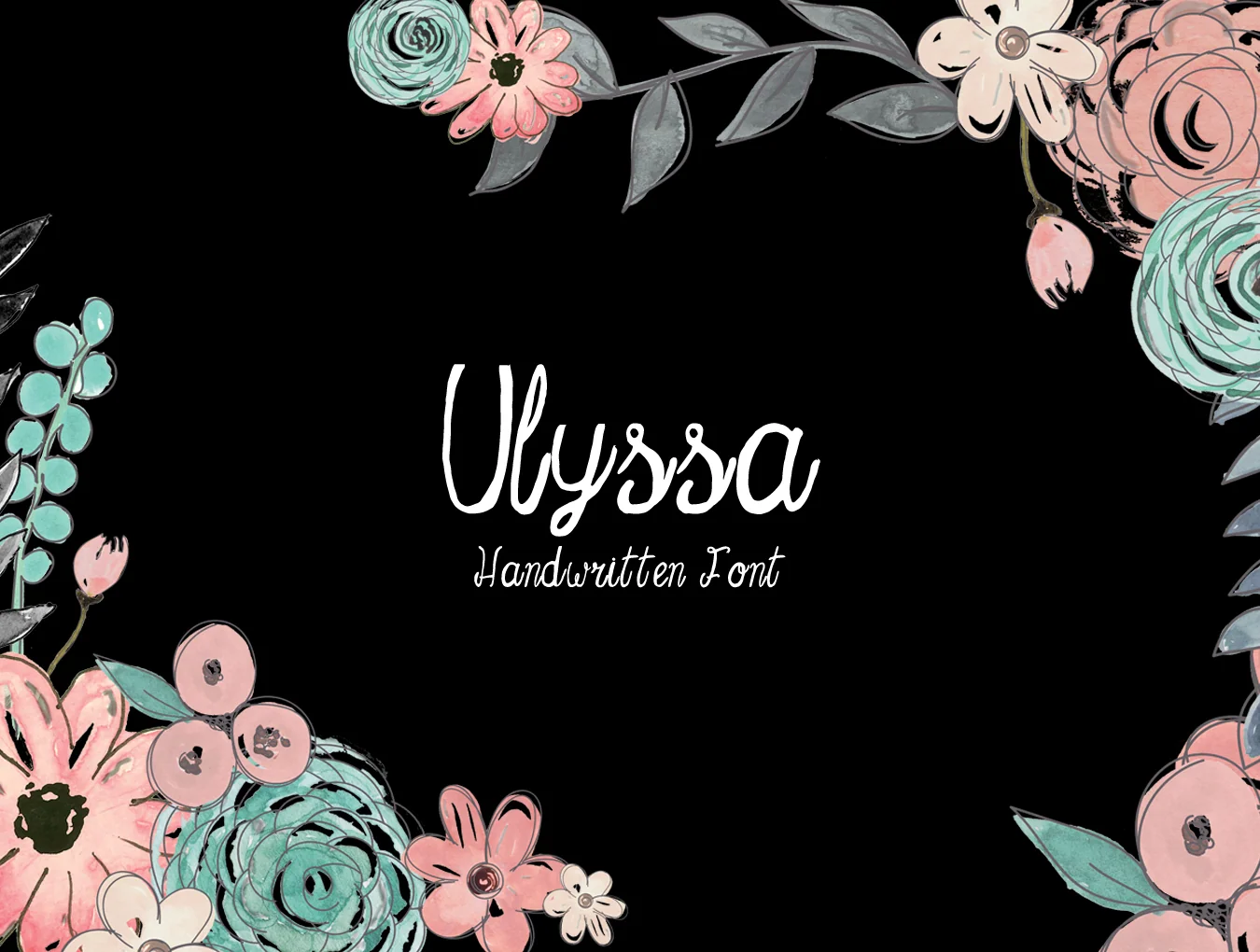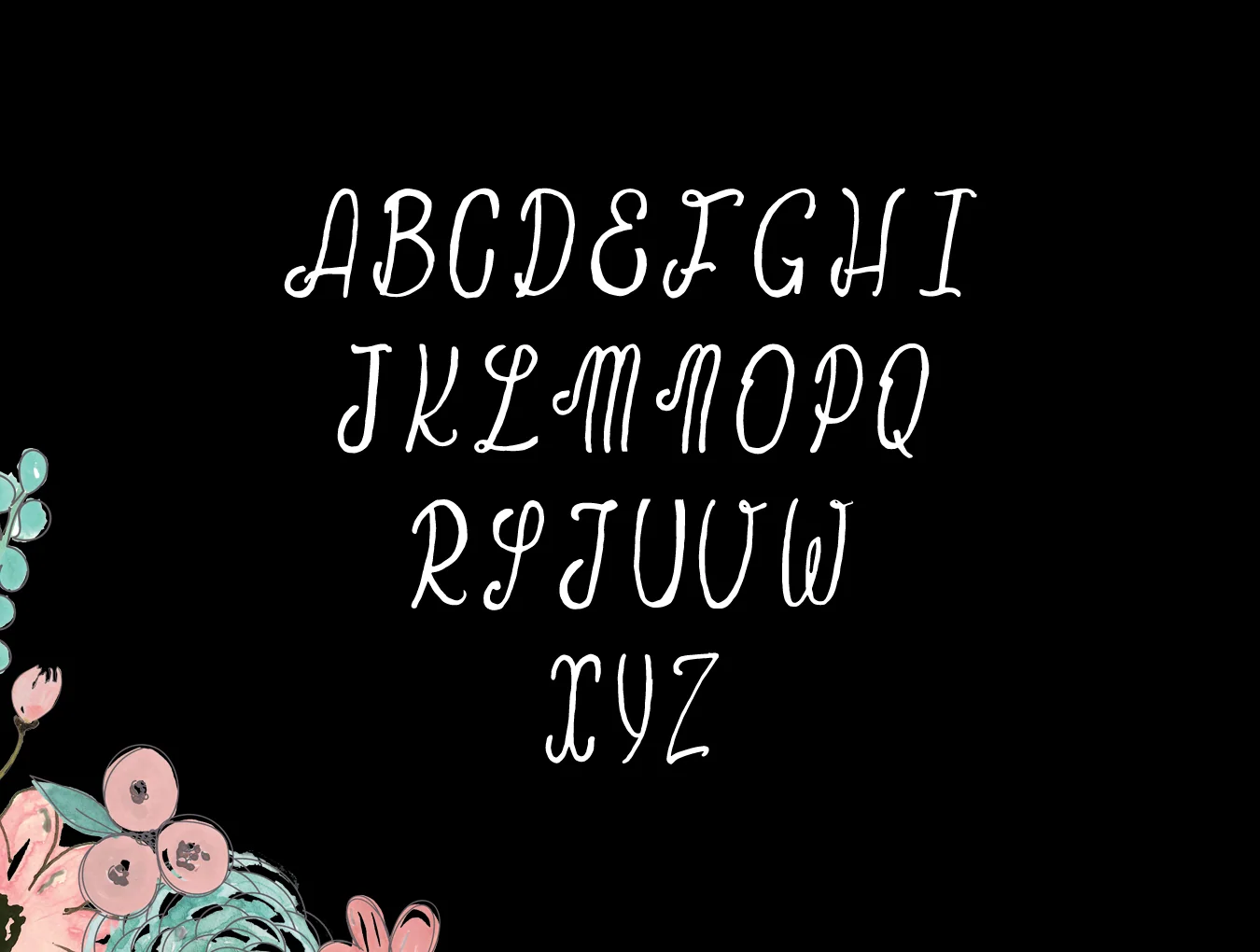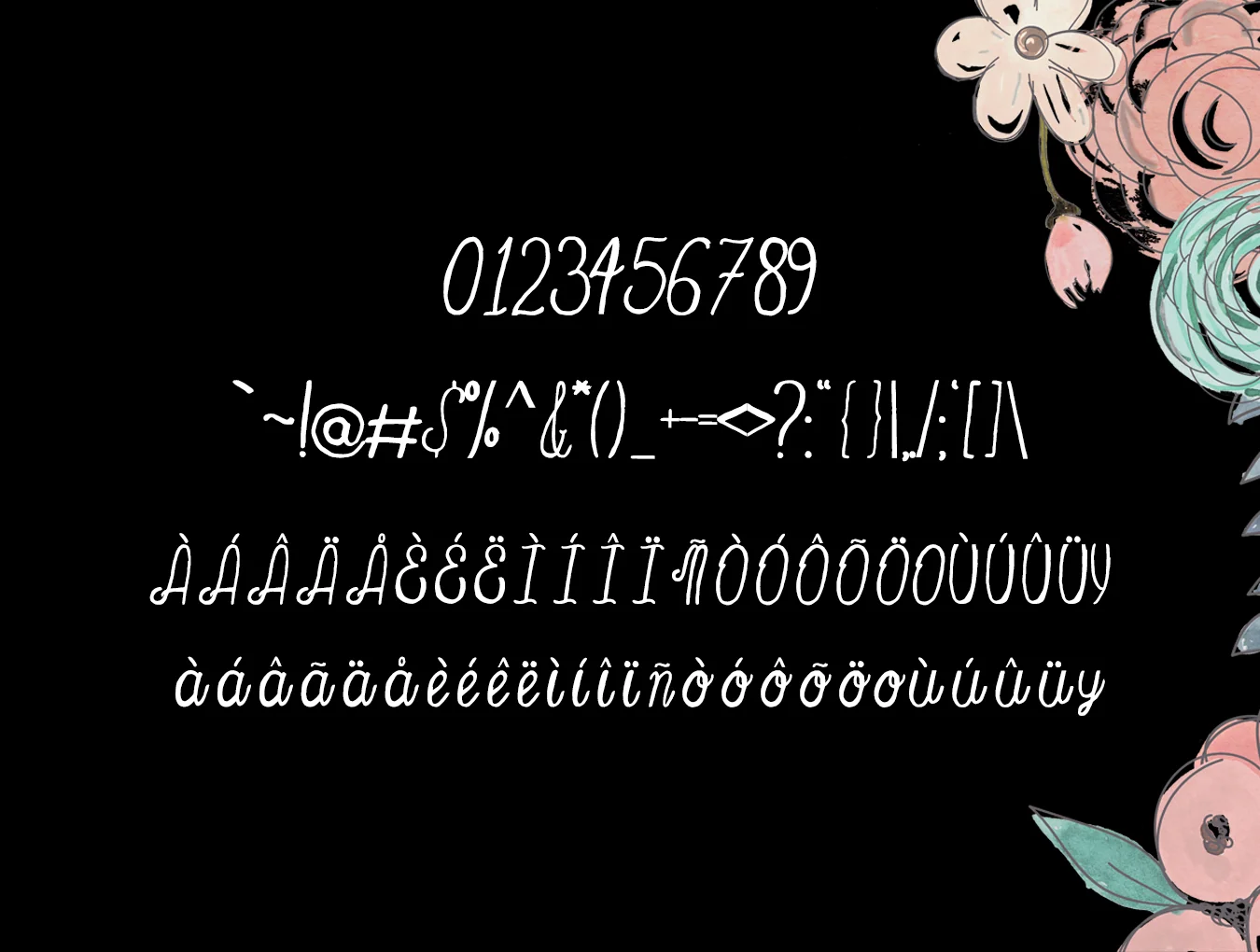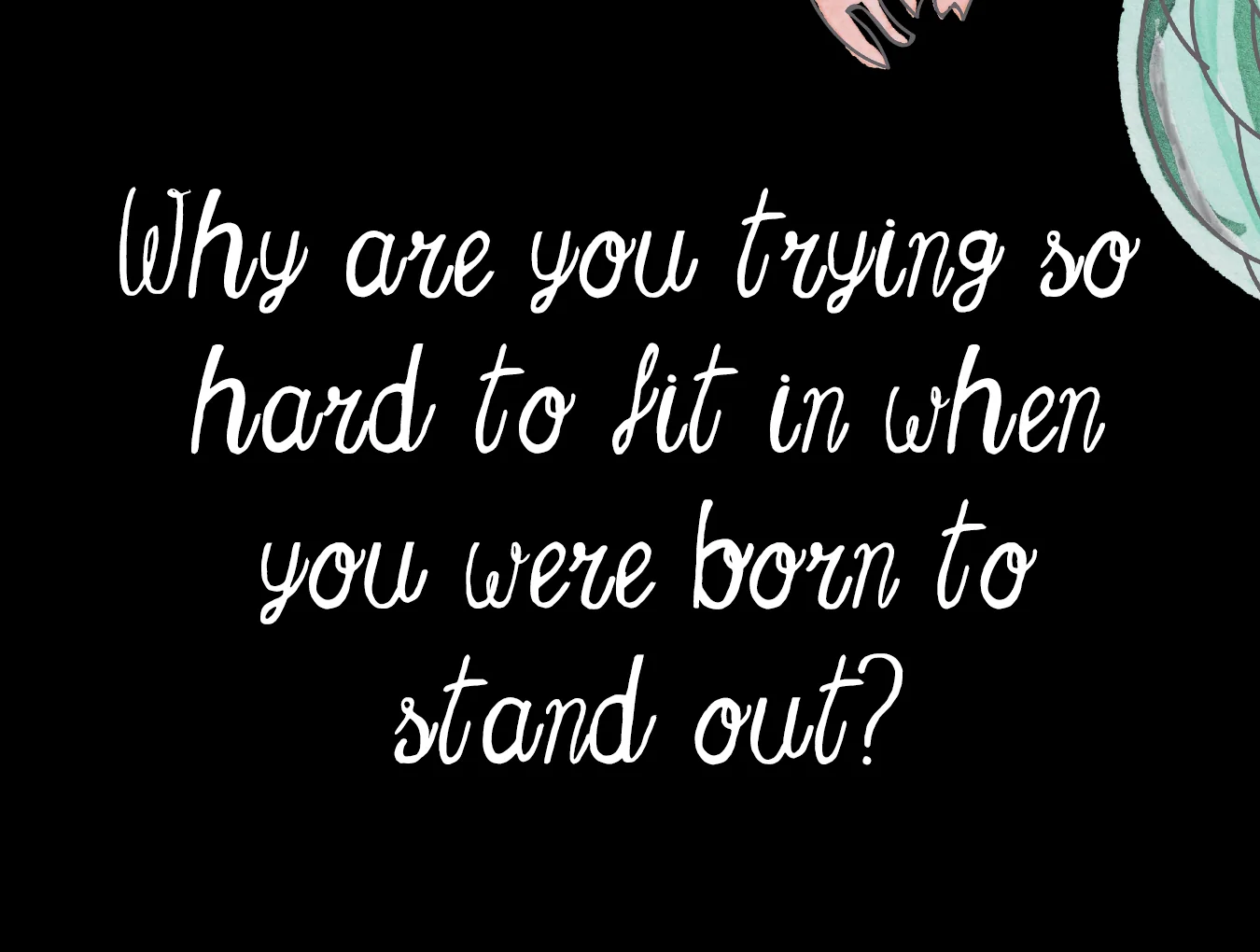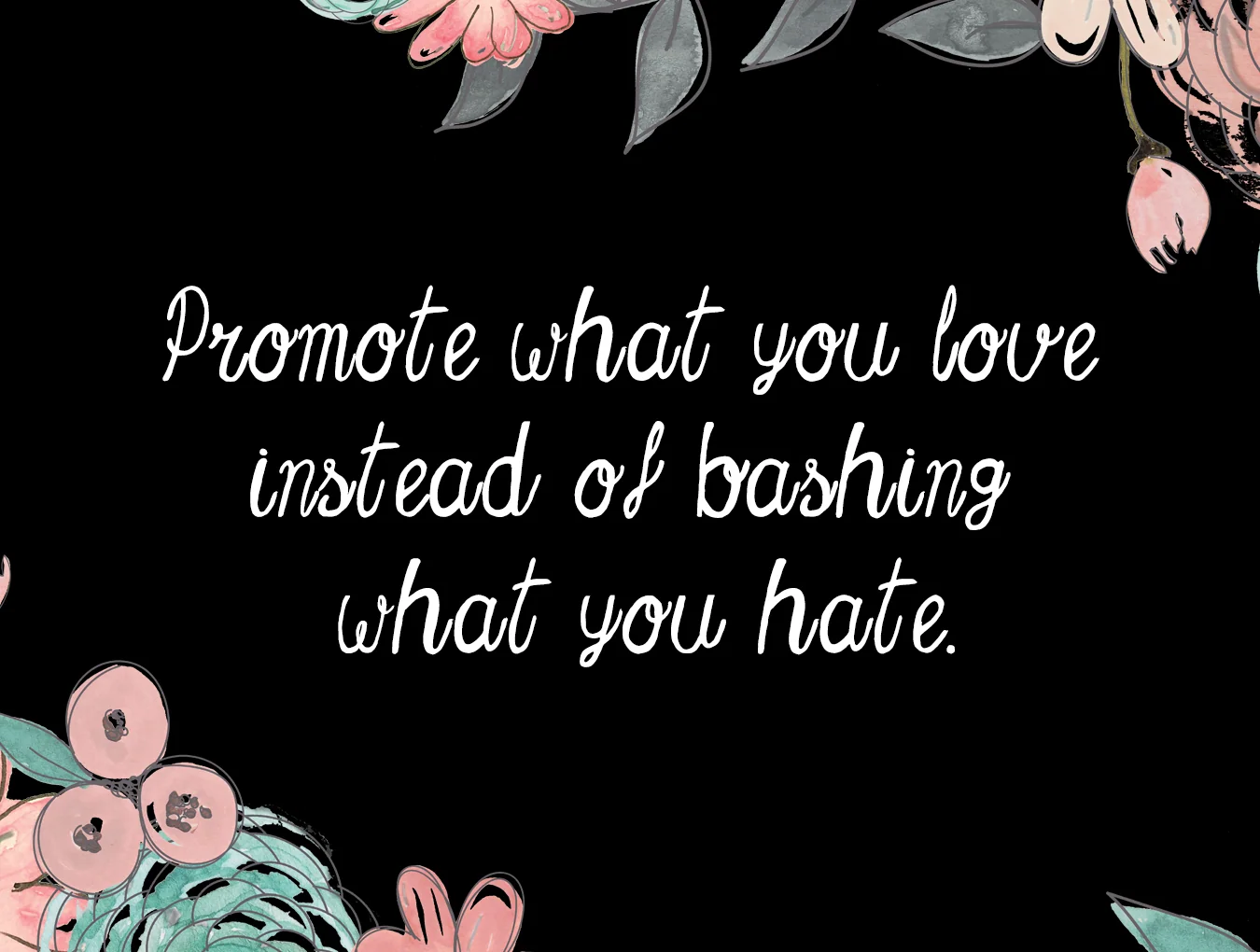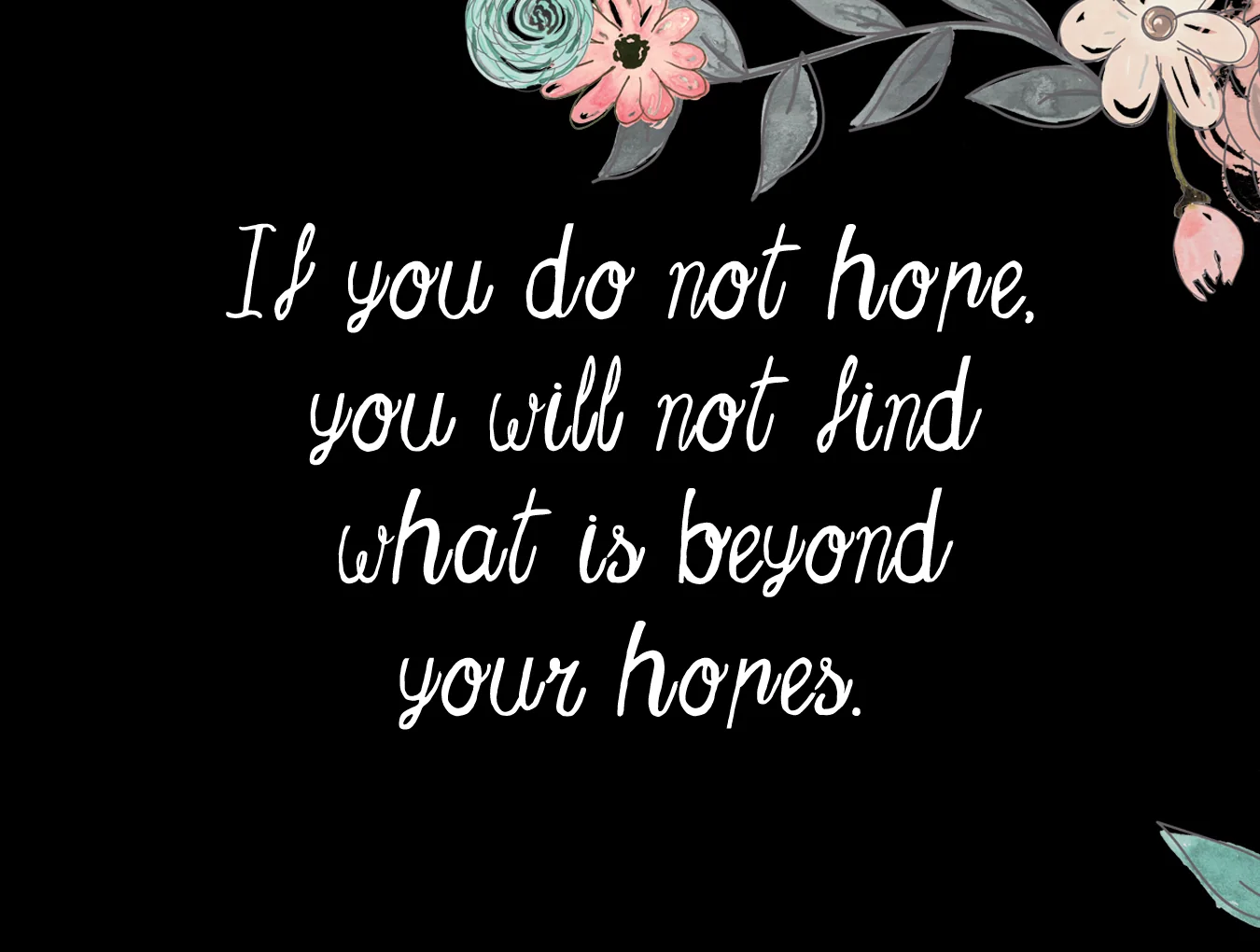
Ulyssa Handwritten Font
Capital and small letters with numerals
Ulyssa is a chic modern handwritten font with a distinctive rhythm and elegant style. It works beautifully for prints, logos, quotes, badges, labels, packaging, blogs, websites, headlines, banners, posters, T-shirts, magazines, promo items, templates, and more.